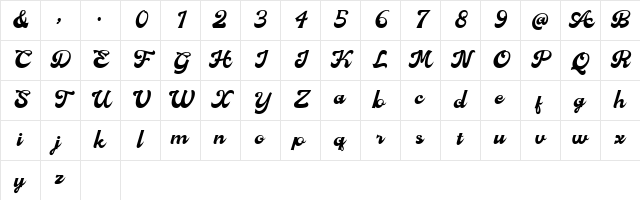
Ajuice_Demo Regular
Foundry: Pana Type & Studio
Designer: Ajusia
Design Context for Ajuice_Demo
Ajuice_Demo is a composed and adaptable typeface that performs quietly and consistently across a wide range of design contexts.